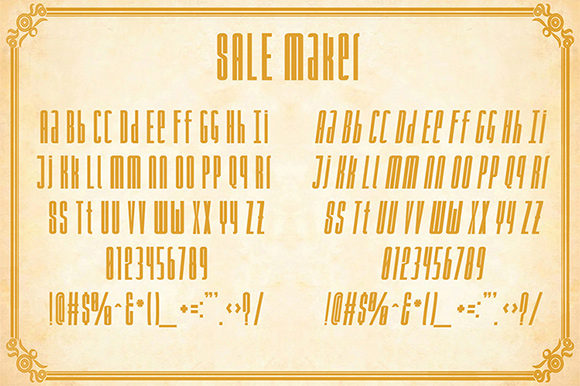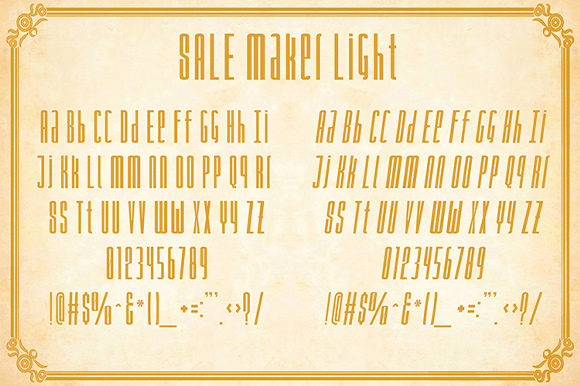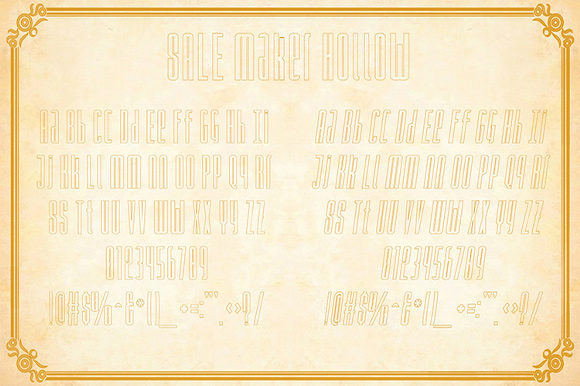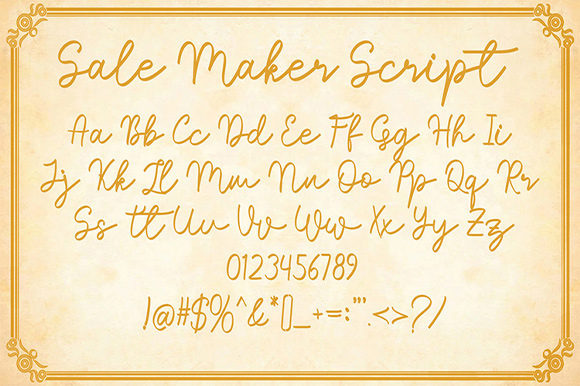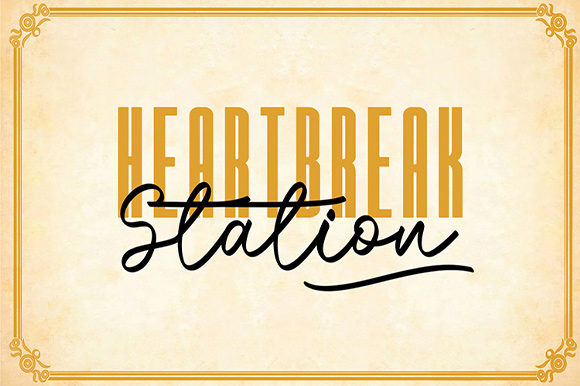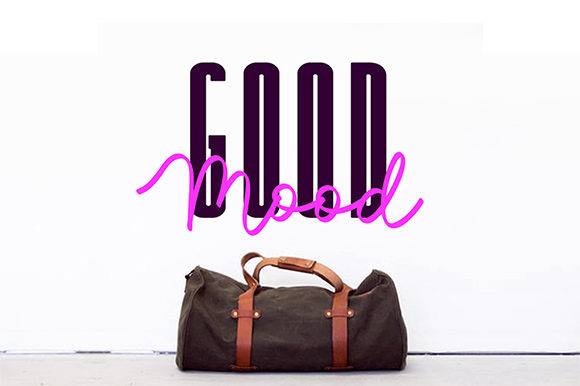
Introduction to Sale Maker Font Font
Fonts play a crucial role in design, and the Sale Maker Font font is a typeface that brings both character and versatility to any project. Whether you’re working on a branding project, a website, or a print design, the Sale Maker Font font offers a unique style that can elevate your work.
Sale Maker is a magical duo script font carefully created with a touch of elegance.
It will elevate a wide range of design projects to the highest level, be it branding, headings, wedding designs, invitations, signatures, logos, labels, and much more .
Key Features of Sale Maker Font Font
Why Choose Sale Maker Font Font?
The Sale Maker Font font is more than just a typeface – it’s a design tool that helps you communicate your message with style and clarity. Its unique character set and versatile design make it suitable for a wide range of applications, from elegant invitations to bold headlines.
With its carefully crafted letterforms and balanced proportions, the Sale Maker Font font ensures readability and visual appeal across all mediums.
What makes Sale Maker Font font special?
The Sale Maker Font font stands out with its unique design, exceptional readability, and versatility across various design applications.